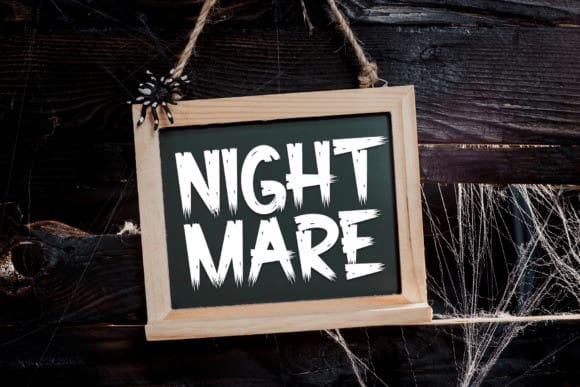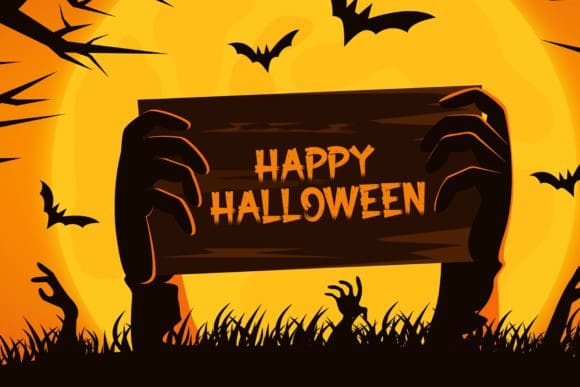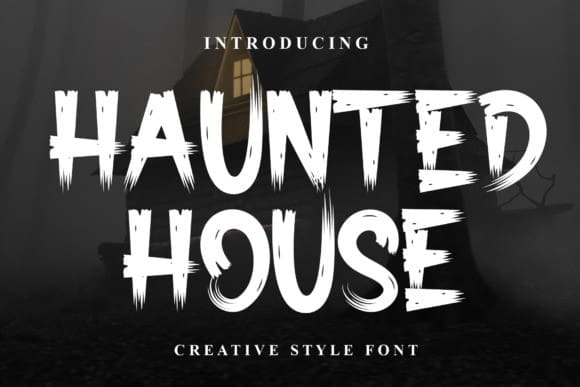
Haunted House Font
Haunted House Font is a unique and interesting handwritten font. A little bit quirky, this font looks incredibly adept on a wide variety of contexts!